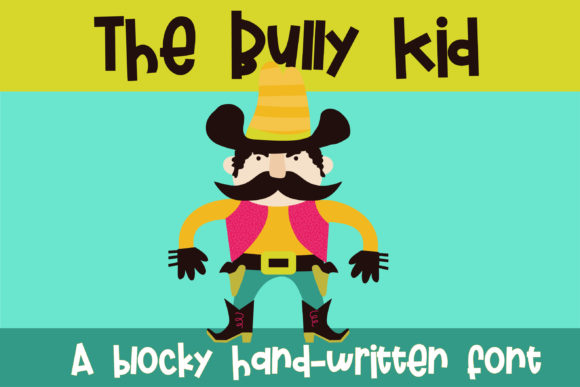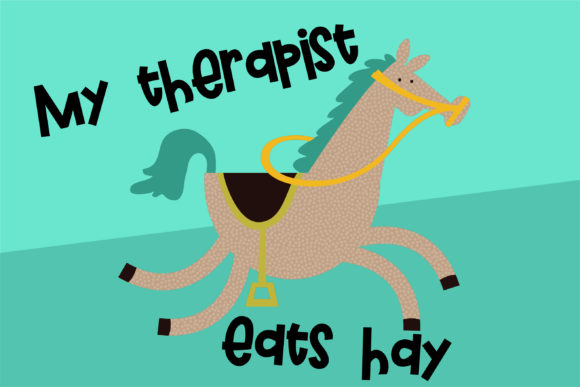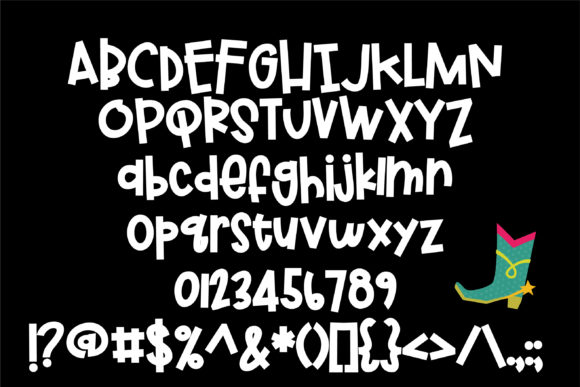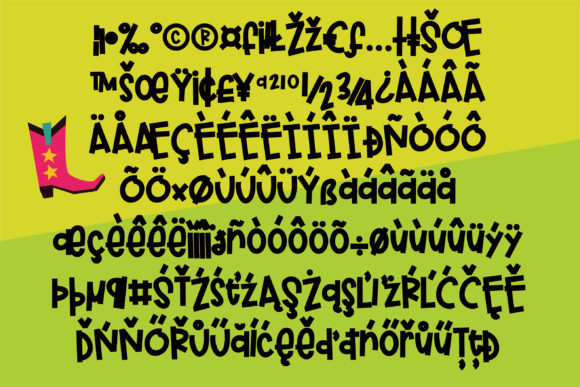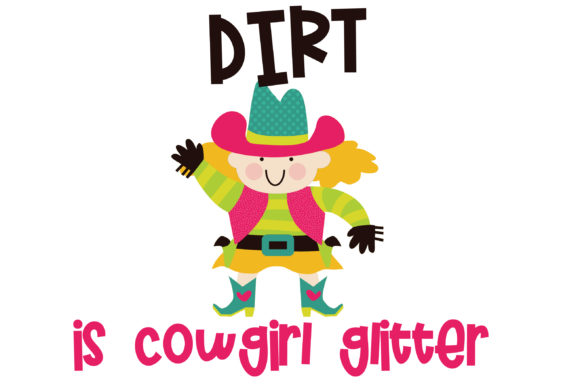
The Bully Kid Font
About The Bully Kid Font
The Bully Kid is a block-like font with a bit of bounce in the baseline. It is bold enough to be used for titles, displays, posters, and more.